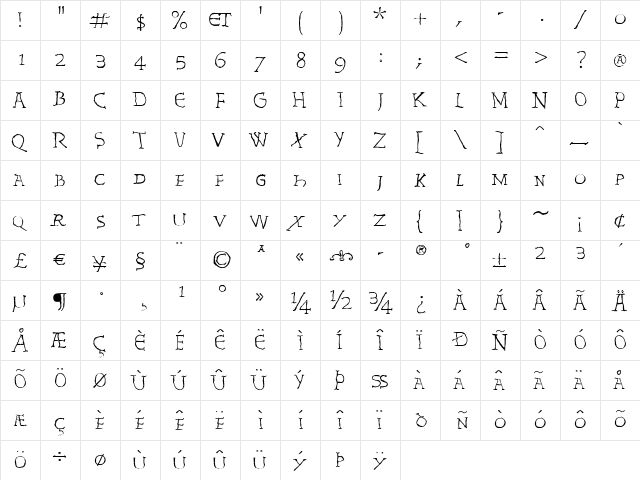
Invasion LT Regular Font Preview
Invasion LT Regular
Invasion LT Regular Font Details
Design Context for Invasion LT Typeface
Invasion LT is a composed and adaptable typeface that performs quietly and consistently across a wide range of design contexts. Its slender proportions lend an understated elegance to any composition.